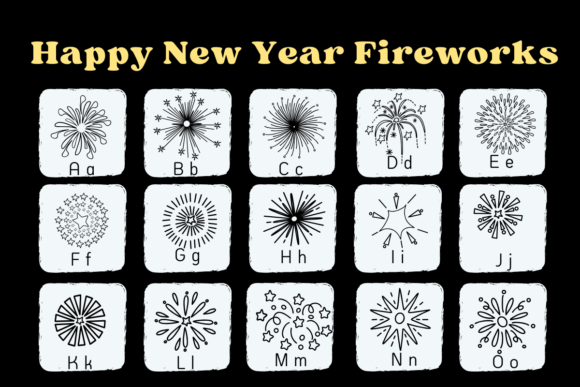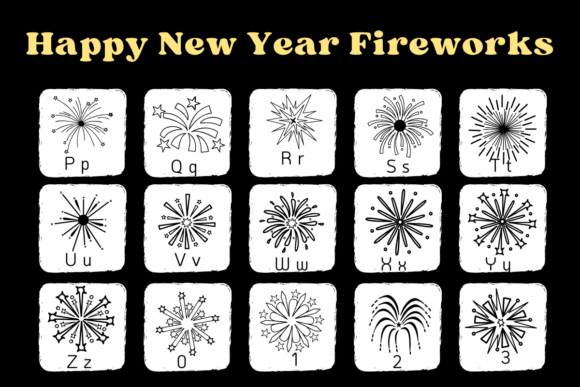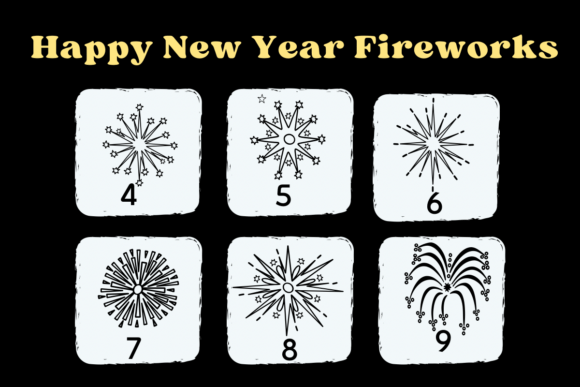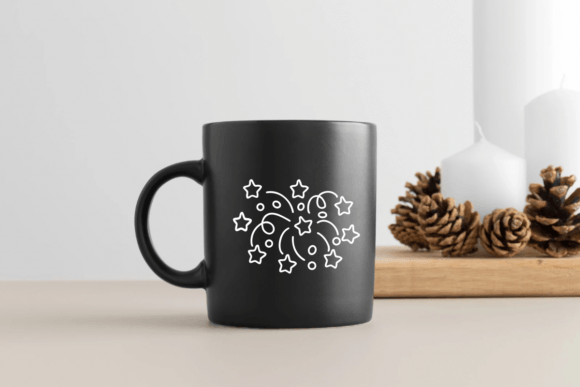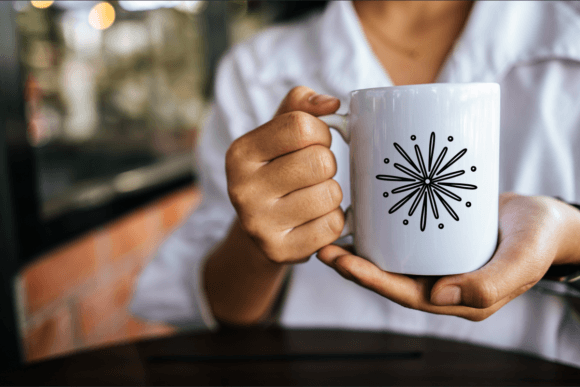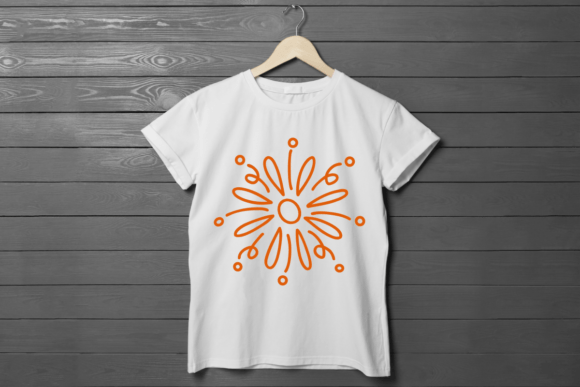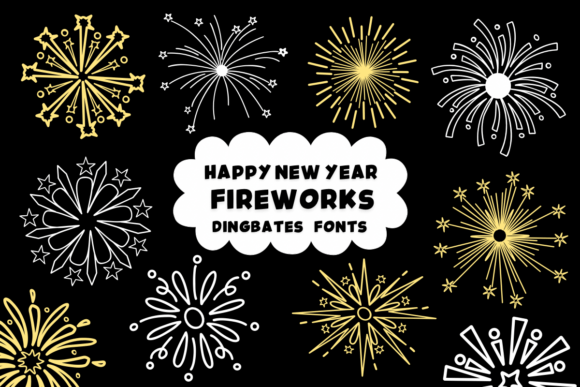
Happy New Year Fireworks Font: Add Spark and Excitement to Your Designs
As the clock strikes midnight on New Year’s Eve, fireworks light up the sky, symbolizing a fresh start and a celebration of the past year’s accomplishments. If you’re a designer or crafter looking to add a touch of festivity to your projects, look no further than the Happy New Year Fireworks Font. This fun and festive dingbat font features a collection of fireworks shapes and designs that are perfect for celebrating New Year or any special event.
What is the Happy New Year Fireworks Font?
The Happy New Year Fireworks Font is a unique and decorative dingbat font that features a range of fireworks-inspired symbols. From exploding fireworks to sparklers and firecrackers, this font has everything you need to add a touch of excitement and celebration to your designs. The font is perfect for a variety of projects, including party invitations, holiday cards, and festive decorations.
Key Features of the Happy New Year Fireworks Font
• Fun and Festive Designs: The Happy New Year Fireworks Font features a range of fun and festive designs that are perfect for celebrating New Year or any special event.
• Dingbat Font: The font is a dingbat font, which means that it’s made up of symbols and shapes rather than traditional letters and numbers.
• Easily Customizable: The font is easily customizable, allowing you to adjust the size, color, and style to suit your needs.
• Perfect for Designers and Crafters: The Happy New Year Fireworks Font is perfect for designers and crafters who want to add a touch of festivity to their projects.
• Party Invitations: Use the font to create festive party invitations that set the tone for your celebration.
• Holiday Cards: Add a touch of festivity to your holiday cards with the Happy New Year Fireworks Font.
• Festive Decorations: Use the font to create festive decorations, such as banners, garlands, and signs.
• Social Media Graphics: Use the font to create social media graphics that celebrate the start of a new year.
• Adds a Touch of Festivity: The font adds a touch of festivity and celebration to your designs.
• Unique and Eye-Catching: The font is unique and eye-catching, making your designs stand out from the crowd.
• Easily Customizable: The font is easily customizable, allowing you to adjust the size, color, and style to suit your needs.
• Perfect for a Variety of Projects: The font is perfect for a variety of projects, including party invitations, holiday cards, and festive decorations.
• Experiment with Different Colors: Experiment with different colors to find the perfect combination for your design.
• Mix and Match Symbols: Mix and match symbols to create a unique and eye-catching design.
• Use the Font in Combination with Other Fonts: Use the font in combination with other fonts to create a visually interesting design.
• Don’t Be Afraid to Get Creative: Don’t be afraid to get creative and try new things.
The Happy New Year Fireworks Font is a fun and festive dingbat font that’s perfect for celebrating New Year or any special event. With its range of fireworks-inspired symbols, this font is sure to add a touch of excitement and celebration to your designs. Whether you’re a designer or crafter, this font is a must-have for anyone looking to add a little spark and excitement to their projects.